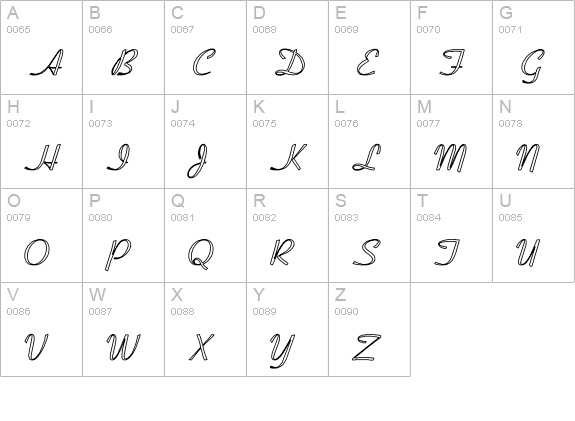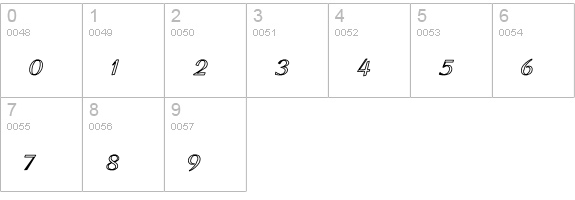
Coronet-SemiBold-Italic Ho is a sub-bold, structured, italic variant in the Coronet typeface family \xE2\x80\x94 well suited to sub-headlines and emphasised passages.
Coronet-SemiBold-Italic Ho is a remarkable and elegant font that exudes sophistication and class. With its semi-bold weight and stylish italicized design, this font is perfect for adding a touch of luxury to any project. The slanted angles and graceful curves of Coronet-SemiBold-Italic Ho give it a unique and distinctive appearance that is sure to make a statement. Best of all, Coronet-SemiBold-Italic Ho is available for free download at FontsMarket.com. This means that you can easily access this stunning font and use it in your designs without any cost. Whether you are creating invitations, branding materials, or any other project that requires a touch of finesse, Coronet-SemiBold-Italic Ho is the perfect choice. Download it now and elevate your designs with this exquisite typeface.